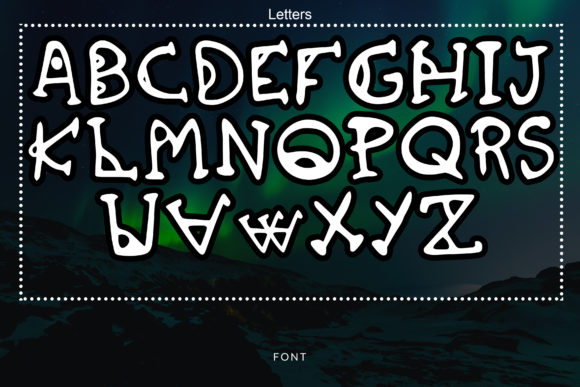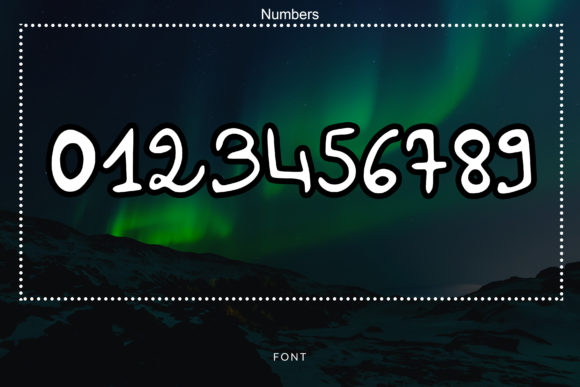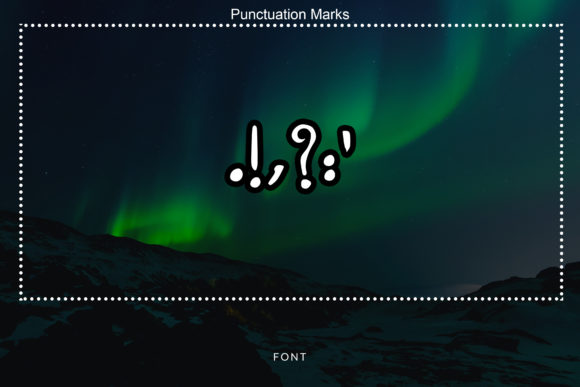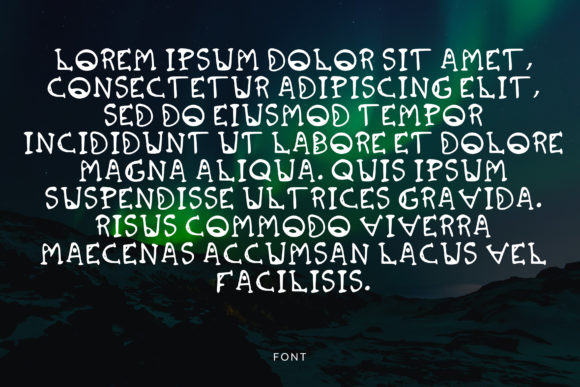
Introduction to Dazzling Night Font
Dazzling Night is a cute and friendly handwritten font.
Playful and a little bit quirky, with its psychedelic look, it would look perfect when paired with a conventional serif/sans serif You can use it for patches, labels, badges, emblems, signs, stickers, headlines, blog headers, branding, packaging, apparel design, and much more.